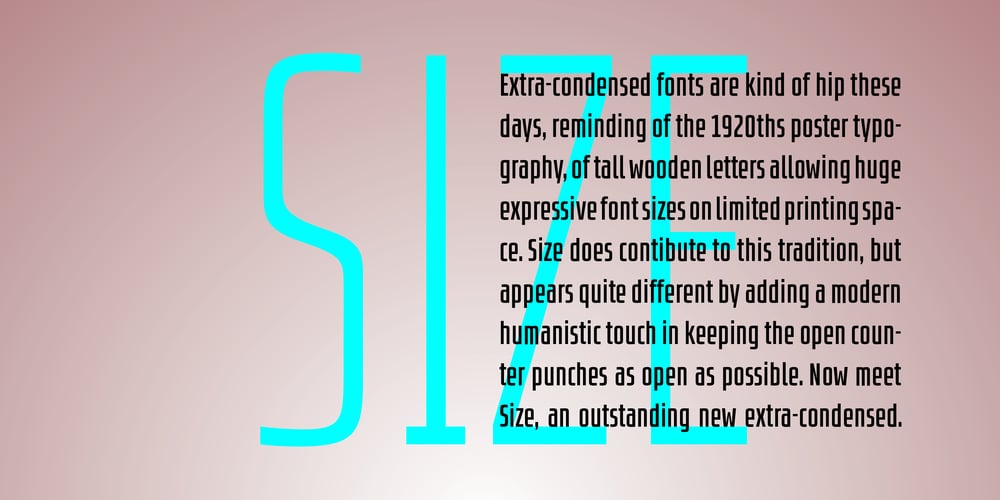
Size Font Family was designed by Hartmut Schaarschmidt and published by SD Fonts. Size contains 7 styles and family package options. Retro style is hip, so are early 20th century poster fonts. Size is based on these extra condensed letter forms. In the 19th century the need to communicate commercial messages on limited poster space brought up extremely condensed fonts creating a new typographical look. Since not really legible in small sizes these fonts nearly disappeared with the change in the commercial communication in the 20th century. For a couple of years now, these extra condensed fonts have a revival copying the exact historical appearance of its predecessors. Size, though also seeking the inspiration in the historical draft, furthermore aims to interpret this compressed look in a more vivid way by not closing in on the open counters of the round letters, but having its stroke endings slightly curved. Since other characters are defined by straight strokes, Size displays a look more vital and candid, but still distinct, compared to its historical predecessors.